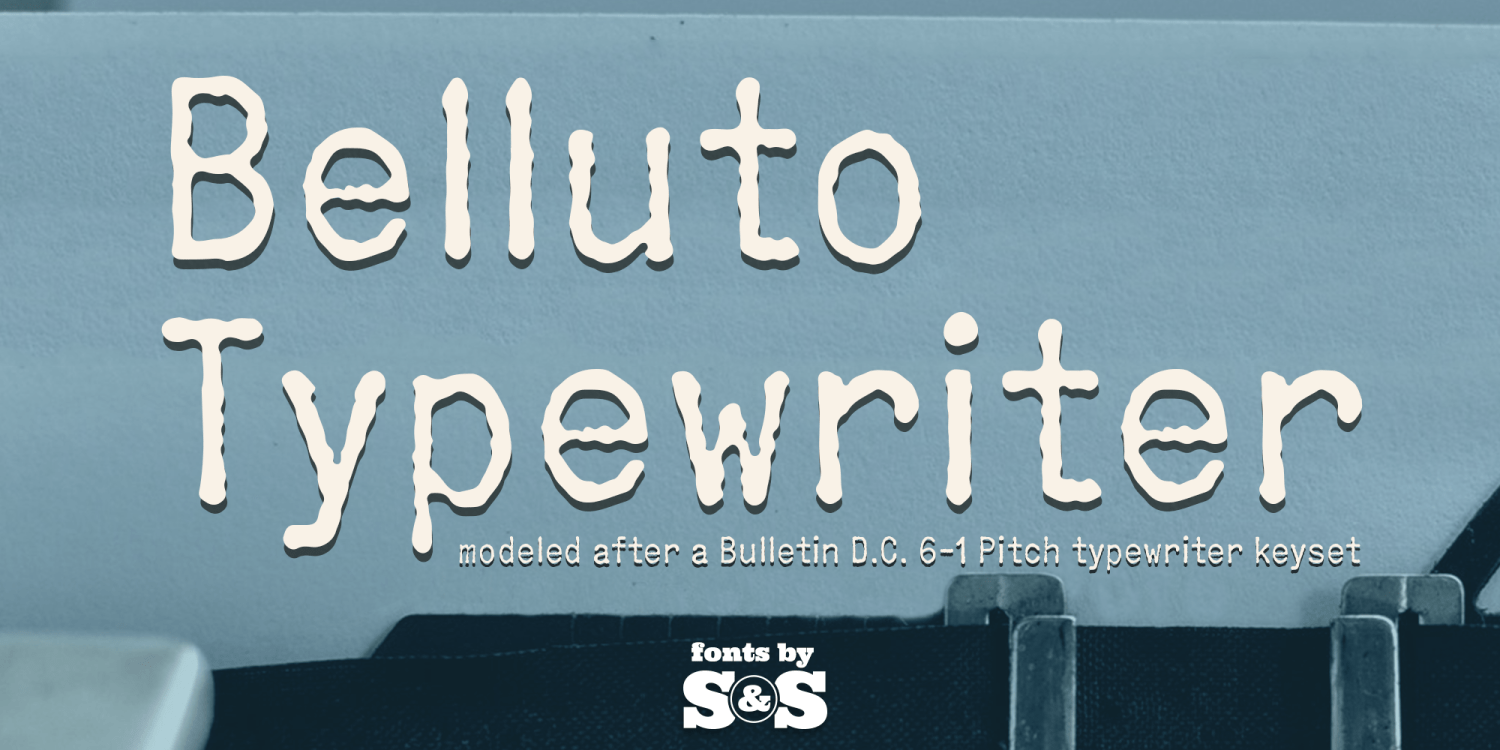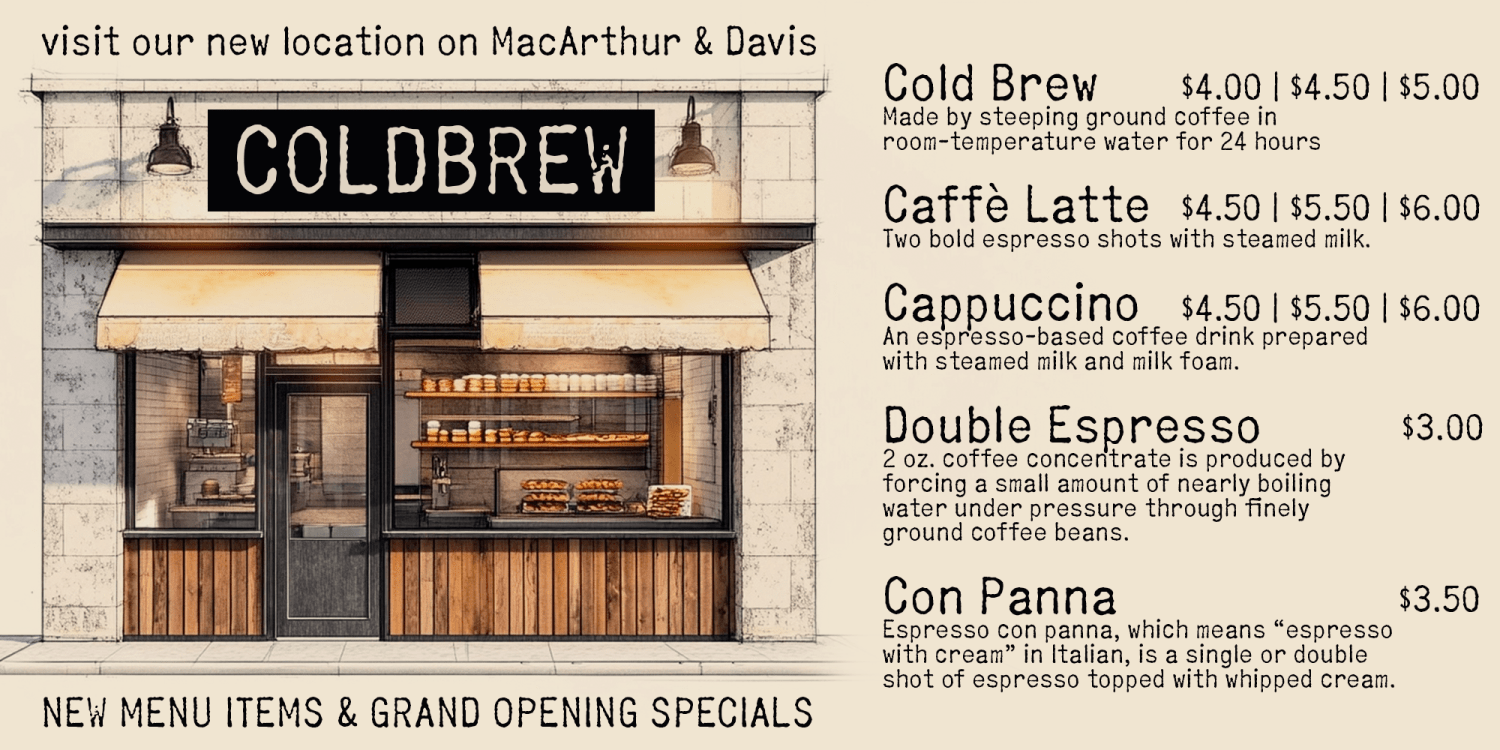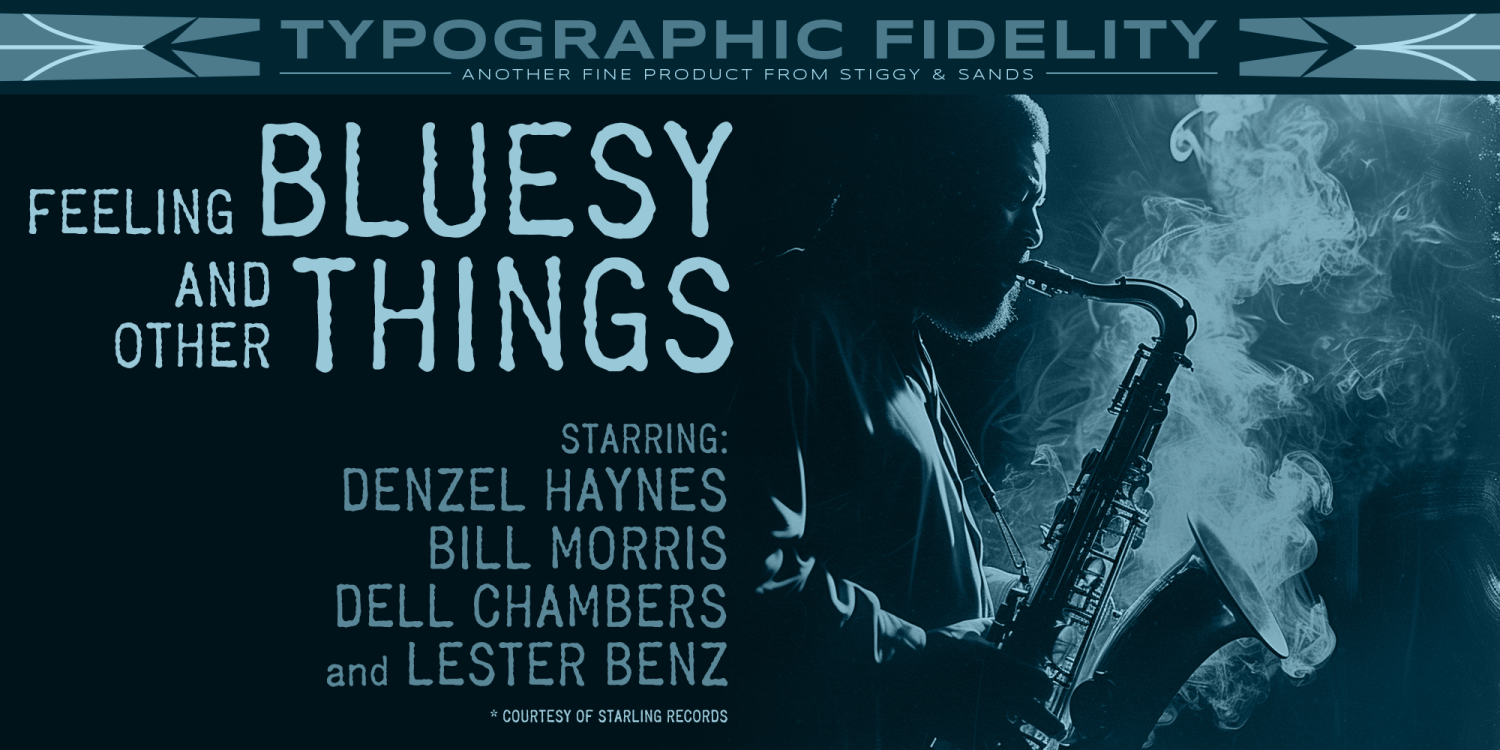
About Belluto Typewriter
Bulleto Typewriter brings the rare individuality of the Bulletin D.C. 6-1 Pitch vintage typewriter keyset to the digital age. Bulleto has a unique sans serif typestyle that feels right at home in vintage military top secret document recreations as well…